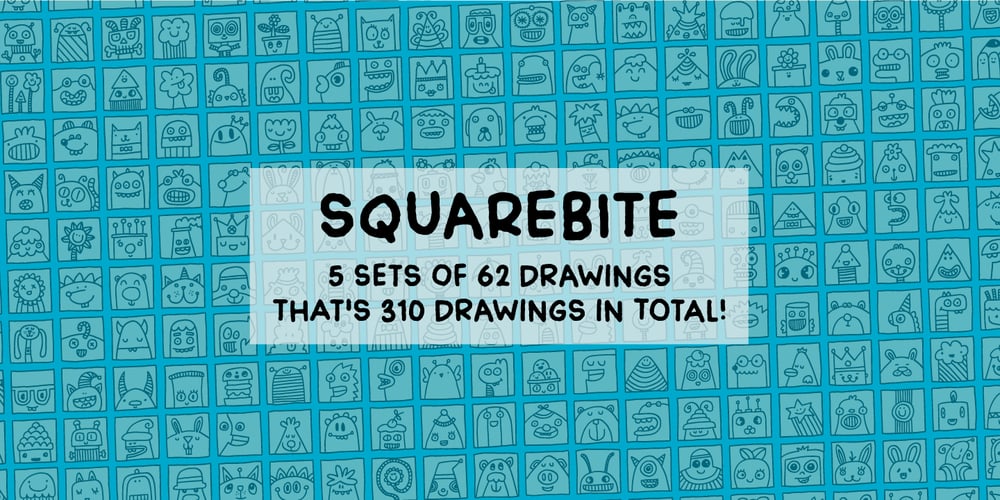
Square Bite
Square Bite font
Square Bite Font Family was designed by Jakob Fischer and published by PizzaDude.dk. Square Bite contains 5 styles and family package options. Here’s a fun collection of cute, weird, crazy and goofy drawings. They are all drawn within a box, which makes it easy for you to align them in a grid, or perhaps make your own colouring book or picture lottery. The shapes of the drawings are typically simple: triangles, circles, squares etc. I use drawings like these in my work as a kindergarten teacher. These simple, but yet appealing drawings, are a great inspiration for kids (especially the ones who never draws or are insecure on how to draw) to start drawing themselves, or as a kickstarter for their imagination!